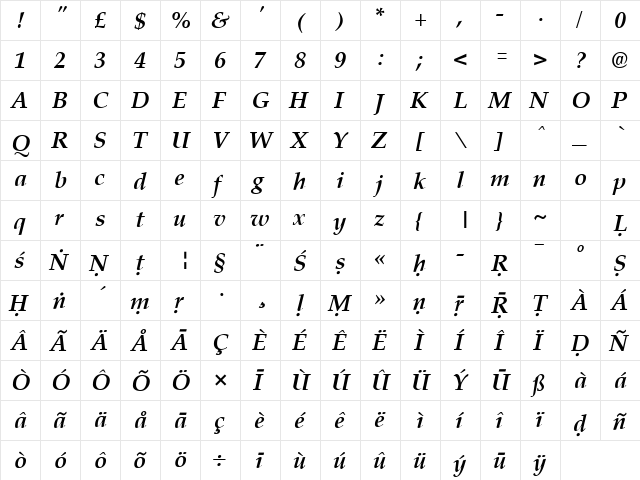
Skt Palermo Bold Italic Font Preview
| Designer | Diacritical marks added by Bhikkhu Pesala. |
Design Context for Skt Palermo Typeface
Skt Palermo takes a measured approach to typography — its balanced proportions and neutral character make it a reliable workhorse for both digital and print work. Its italic angle brings a sense of urgency and motion to the letterforms. Its bold stroke weight gives it real presence on the page.
Pro Tip: Try Skt Palermo for annotation and caption copy alongside an upright companion — the contrast in angle creates a dynamic but ordered typographic system.